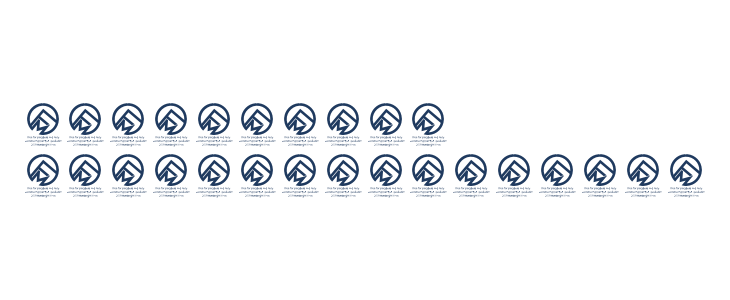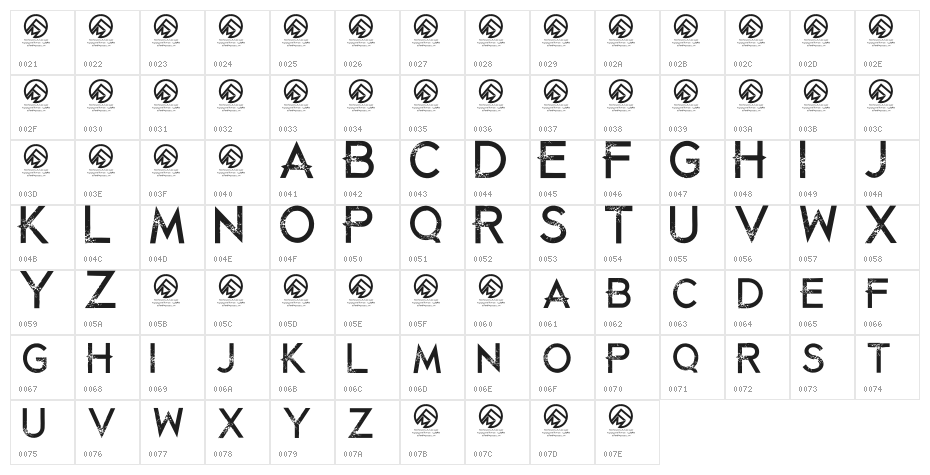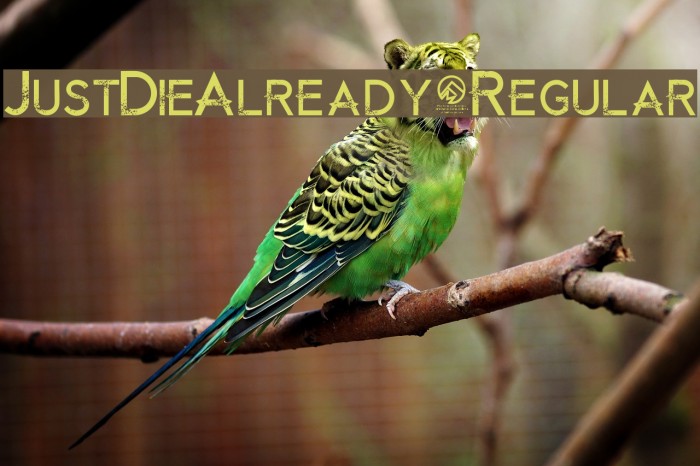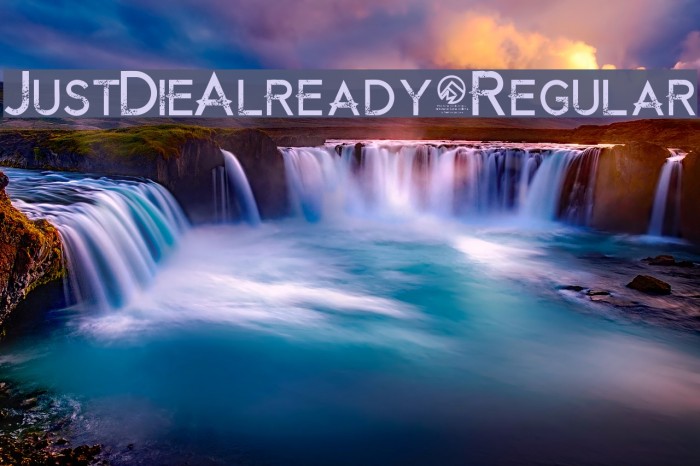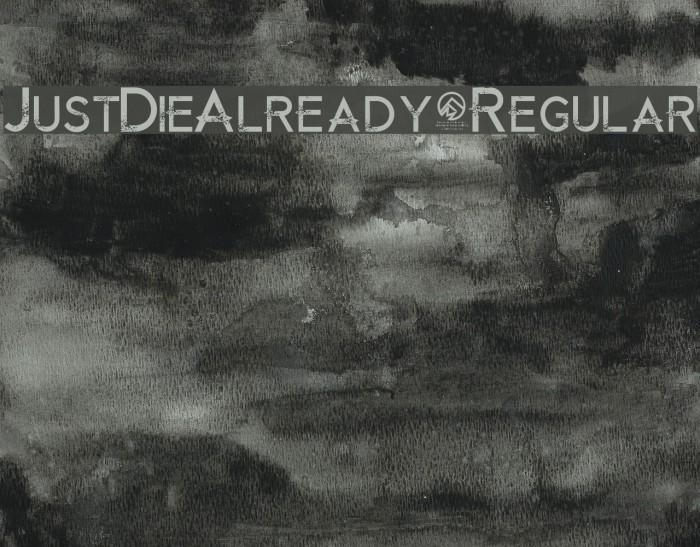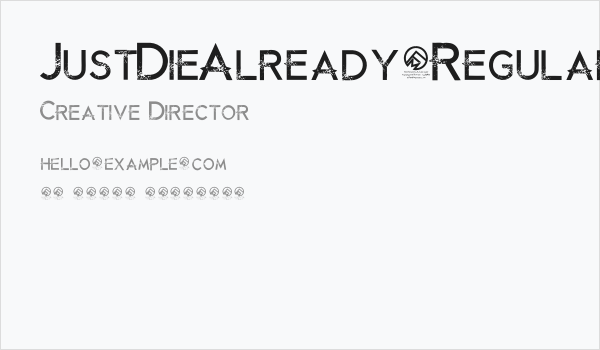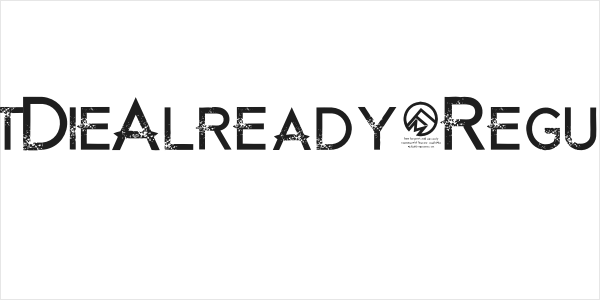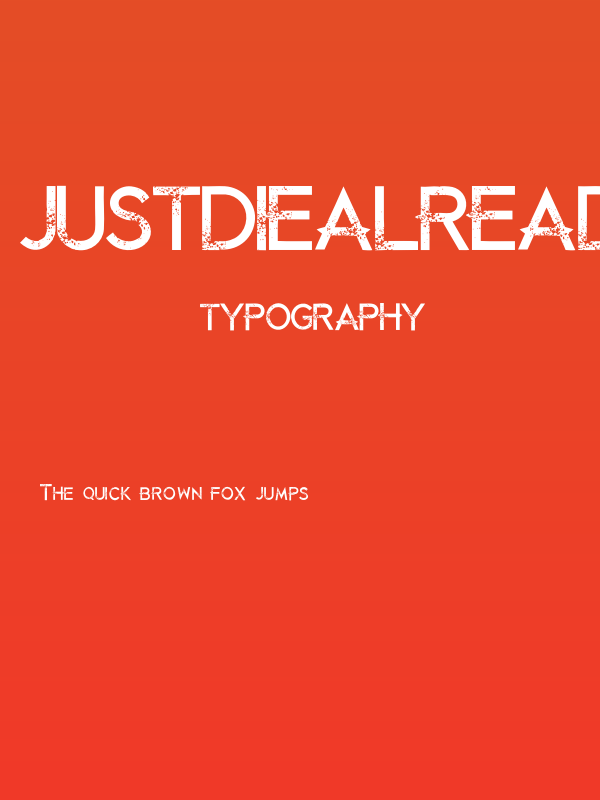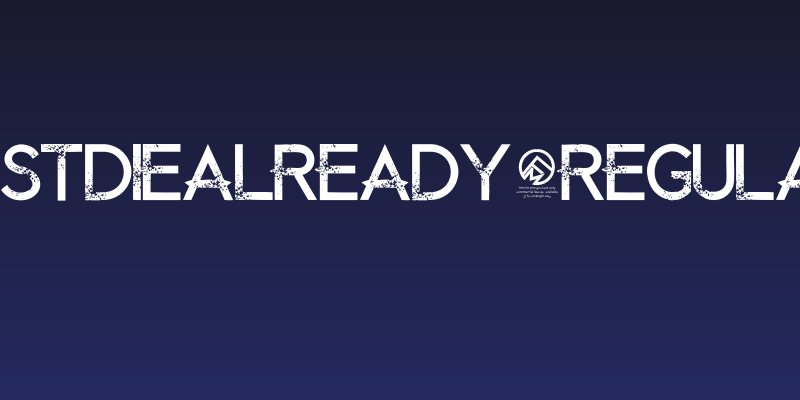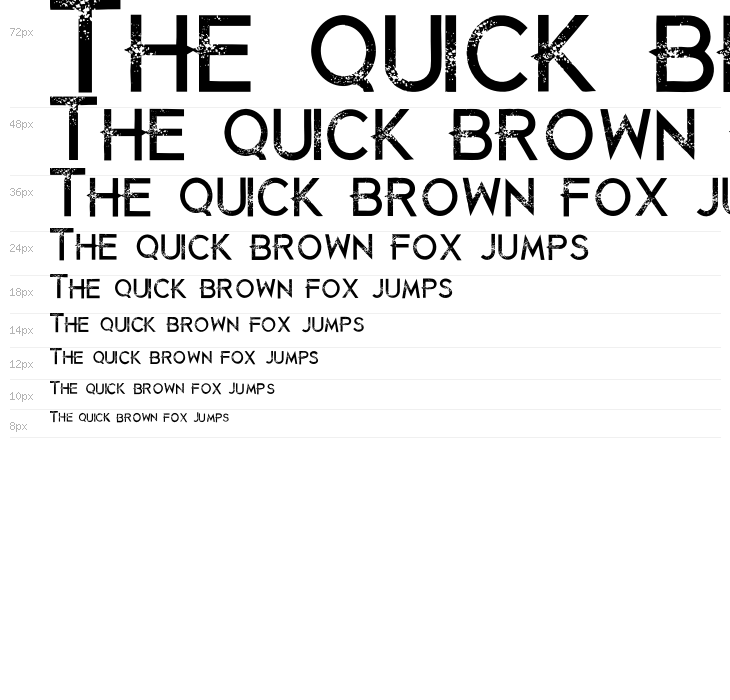
JustDieAlready-Regular Font
JustDieAlready-Regular Description
This font features a distressed, grunge aesthetic with a bold and impactful presence. The uppercase letters are designed with a rough texture, giving them a worn and edgy look. The characters have a geometric structure with sharp angles and clean lines, yet the distressed effect adds a layer of complexity and visual interest. The font maintains a consistent weight throughout, providing a uniform appearance despite the textured surface. This style is ideal for projects that require a bold statement or a rugged, urban feel.
| Overall Style | Grunge, Urban, Edgy |
| Proposed Projects | Perfect for album covers, posters, branding for edgy or alternative brands, and any design needing a bold, gritty look. |